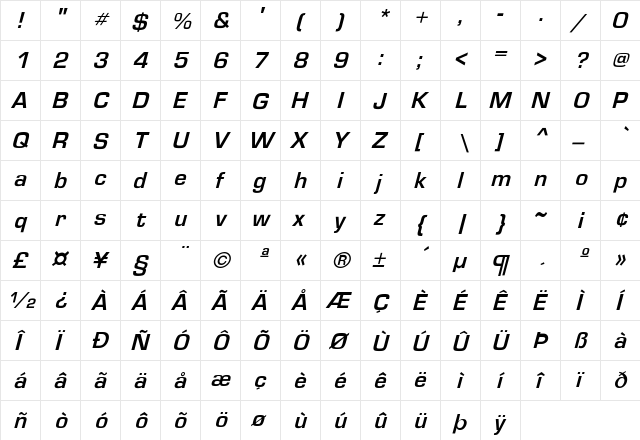
EurostileObl-Bold Regular
Design Context for EurostileObl-Bold Typeface
EurostileObl-Bold is a composed and adaptable typeface that performs quietly and consistently across a wide range of design contexts. Its bold stroke weight gives it real presence on the page.
Pro Tip: Pair EurostileObl-Bold with a font of contrasting weight or personality to build a more expressive typographic hierarchy.